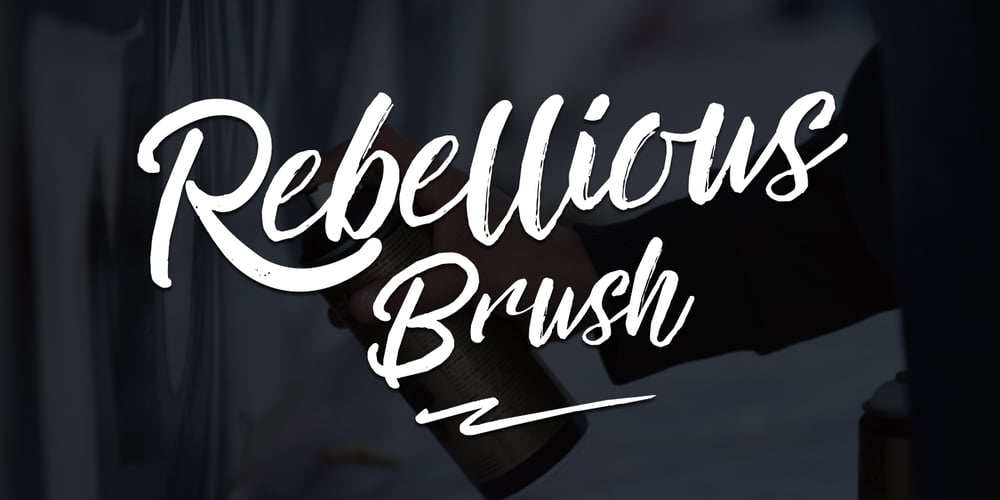
Rebellious Brush Font Family was designed by Joanne Hewitt and published by Joanne Marie. Rebellious Brush contains 1 styles and family package options. Rebellious Brush marker font is a hand lettered brush script. What fun I’ve had from the beginning using pencil on paper to practising creating the glyphs with several types of markers!You’ll notice that there are a couple of swashes in the preview pictures – I haven’t advertised these because they are only accessible via a glyphs panel using the OTF file supplied.